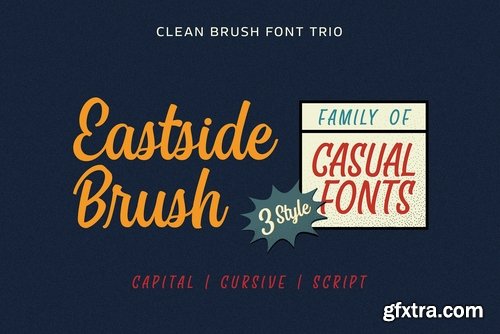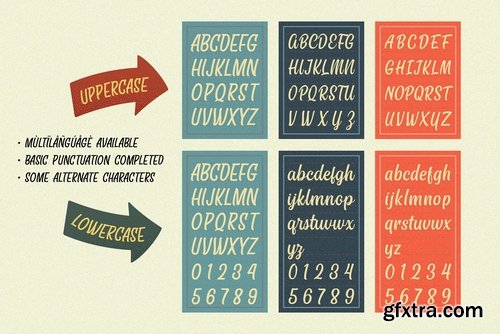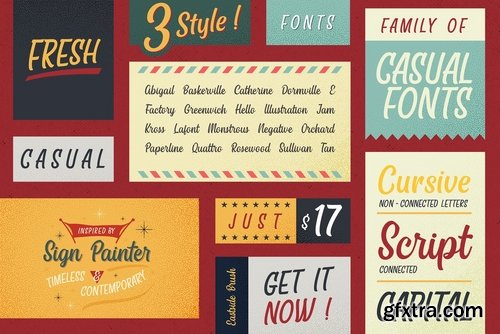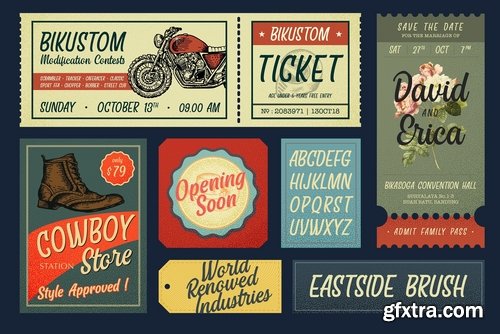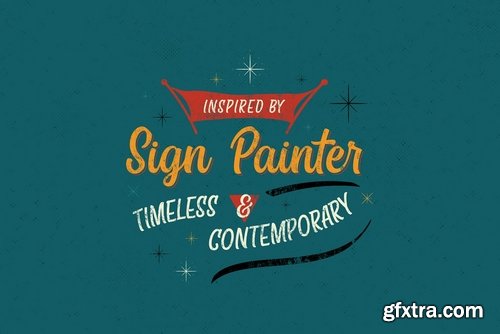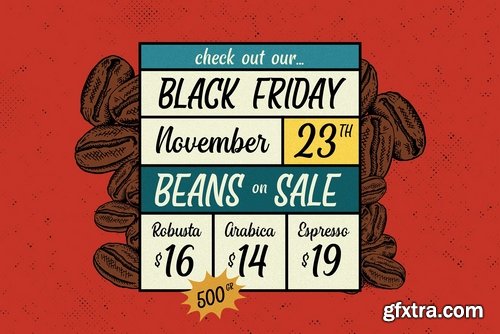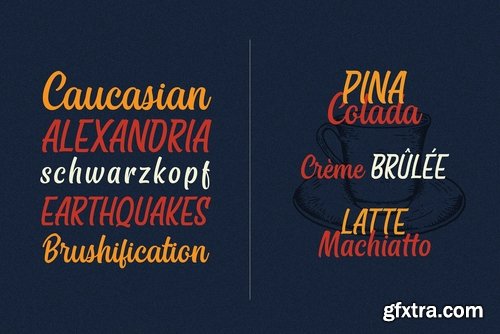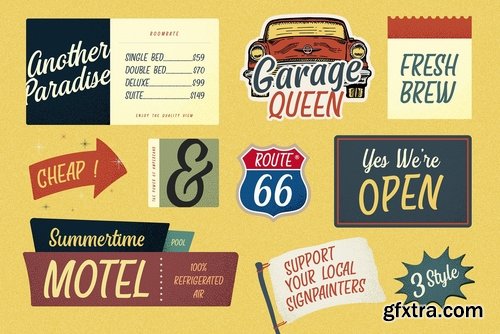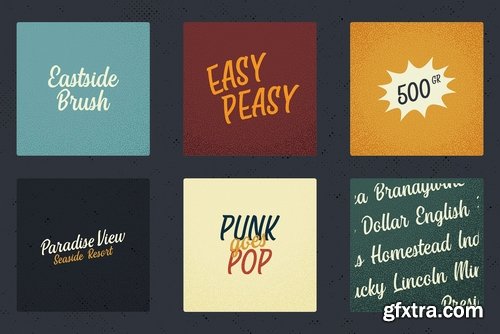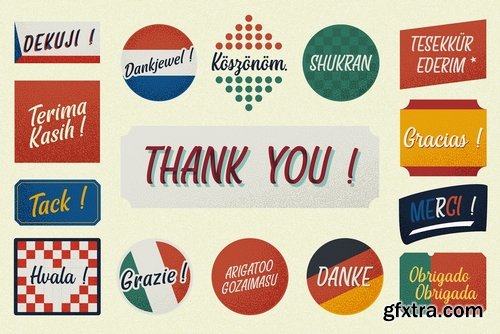
Brand New Font Trio
Eastside Brush.
Inspired by A casual style from sign painter who create a beautiful lettering trademark. A classical, timeless, and contemporary.
Eastside Brush comes with 3 style, That's script style, cursive style, and capital style for all caps letter. It s should be easy to mix and match which best style for your design. Multiple language are available to all fonts.
Eastside Brush Capital
Eastside Brush Script
Eastside Brush Cursive